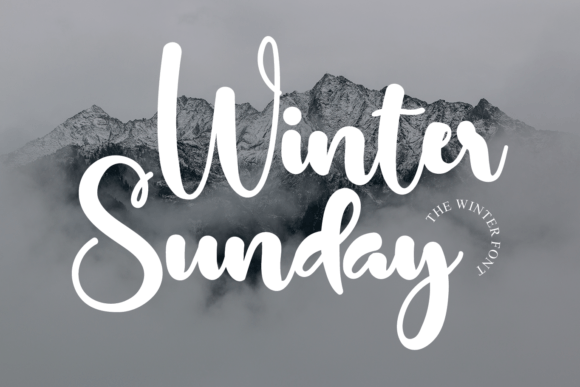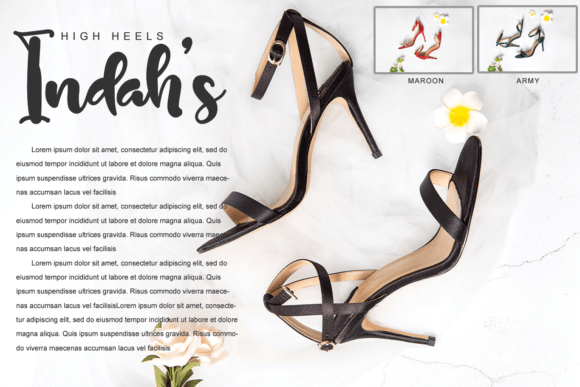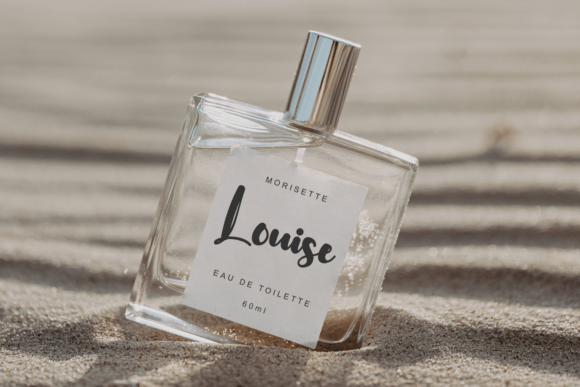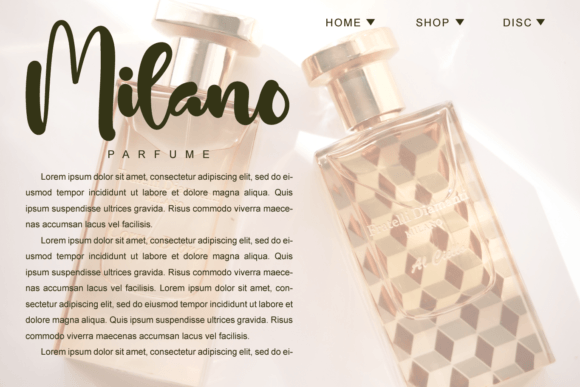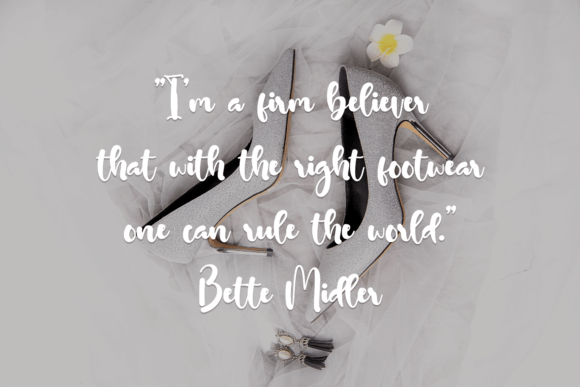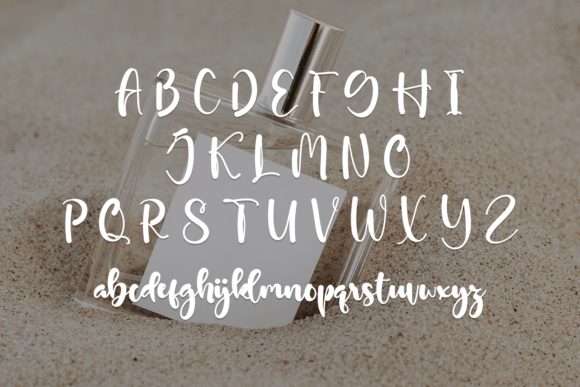
Winter Sunday Font
About Winter Sunday Font
Winter Sunday Font is an exquisite handwritten script designed to bring elegance and personality to your creative work. Inspired by classic calligraphy and refined with a fresh modern touch, this typeface offers both charm and versatility. Whether you’re designing a logo or crafting an invitation, it gives your work a polished, high-end look.
Perfect for Multiple Design Uses
This font stands out for its beauty and adaptability. You can use Winter Sunday Font in a variety of design projects, such as:
• Wedding invitations and stationery
• Branding and elegant logos
• Digital design projects
• Packaging and promotional materials
• Inspirational quote graphics
Its fluid strokes and stylish curves ensure your message is not just seen—but remembered.
What Makes Winter Sunday Special?
What sets this font apart is its seamless blend of vintage sophistication and modern freshness. Here are a few reasons why designers love it:
• Timeless elegance: It captures the charm of traditional scripts.
• Modern appeal: Subtle touches make it feel current and stylish.
• Smooth readability: Every letter flows naturally for visual harmony.
• Creative flexibility: Pairs well with both serif and sans-serif fonts.
Because of its elegant construction and refined character set, it looks beautiful in both print and digital formats.